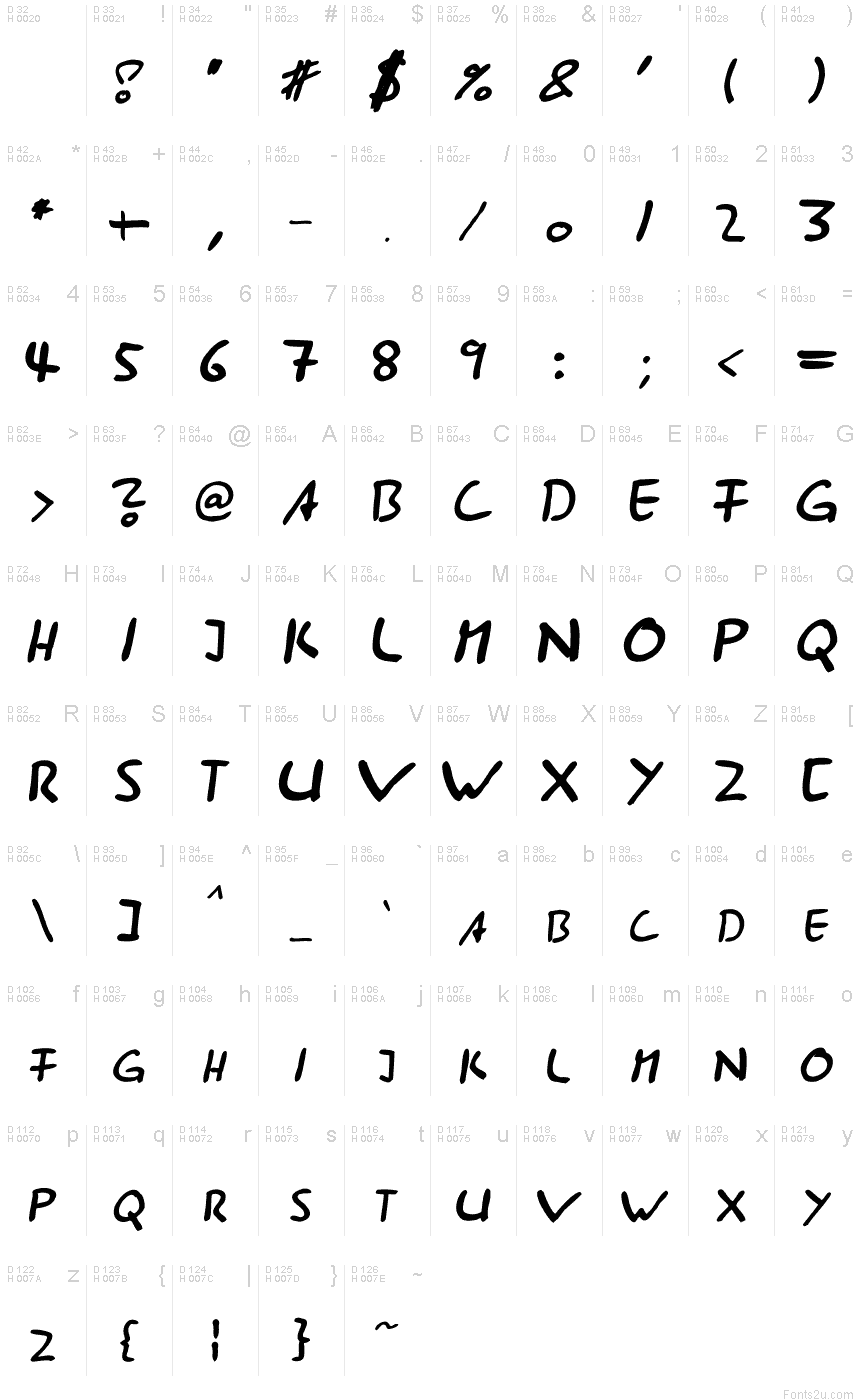
AST 285
AST 285 font is a free handwritten marker typeface with a punchy, impatient rhythm—thick strokes, quick curves, and slightly wobbly edges that feel like fresh ink dragged across paper. It’s bold without being tidy, so your words land with the same snap as a hand-scrawled note on a shipping box or a backstage pass.
Using AST 285, try punchy headlines on gig posters, streetwear graphics, album covers, zines, sticker packs, café chalkboard-style promos, and social thumbnails where you need instant attitude. This free font also works nicely for packaging accents and short slogans—keep it a bit oversized so the texture reads. Pair it with a clean sans like Inter or Helvetica for the small print.